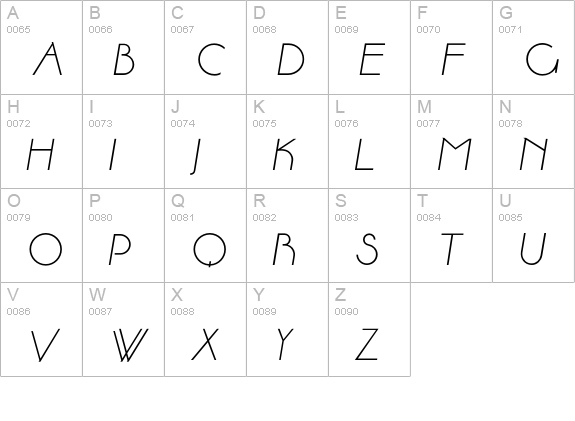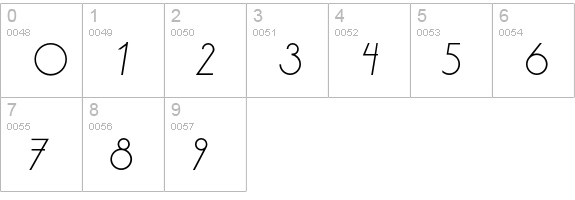
AaseItalic Font Details
AaseItalic font is a stunning typeface that exudes elegance and sophistication. Its gracefully slanted letters bring a touch of modernity and style to any design project. This font is ideal for creating eye-catching headlines, logos, and branding materials that demand attention. One of the most appealing aspects of AaseItalic font is that it is free. Yes, you read that right! This exquisite typeface can be downloaded at no cost from FontsMarket.com. This makes it an excellent choice for both personal and commercial use, as it allows designers to create stunning visuals without breaking the bank. The sleek and slender curves of AaseItalic font give it a unique charm that sets it apart from other fonts. Its delicate strokes and fine details make it perfect for creating designs that require a touch of sophistication and refinement. Whether you're working on a wedding invitation, a fashion magazine layout, or a luxurious brand identity, AaseItalic font will elevate your creations to new heights. With AaseItalic font, you have the freedom to explore your creativity and experiment with different design elements. Its versatility allows it to be used in a wide range of projects, from print materials to digital media. The clarity and legibility of this font ensure that your message will be effectively conveyed to your audience. Downloading AaseItalic font is a simple and hassle-free process. Just head over to FontsMarket.com and click on the download button. Within seconds, you'll have this beautiful typeface ready to use in your design projects. So why wait? Start creating stunning visuals with AaseItalic font today!